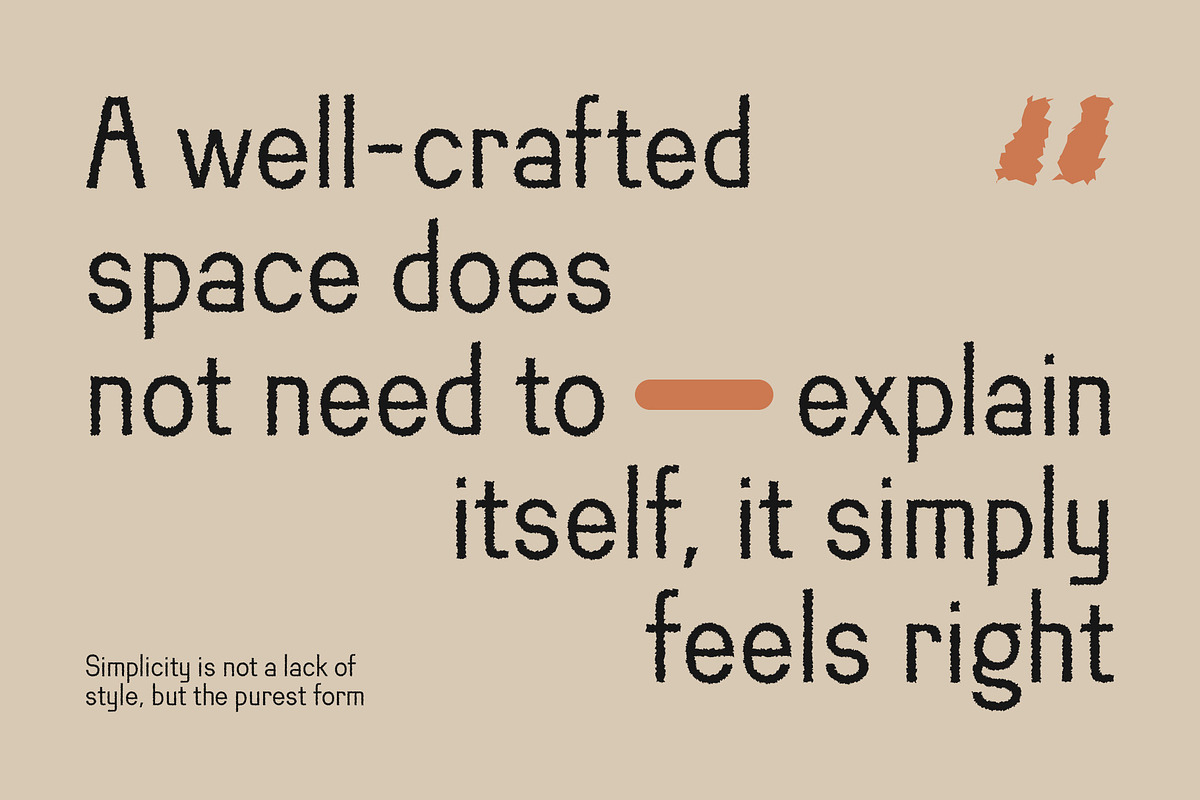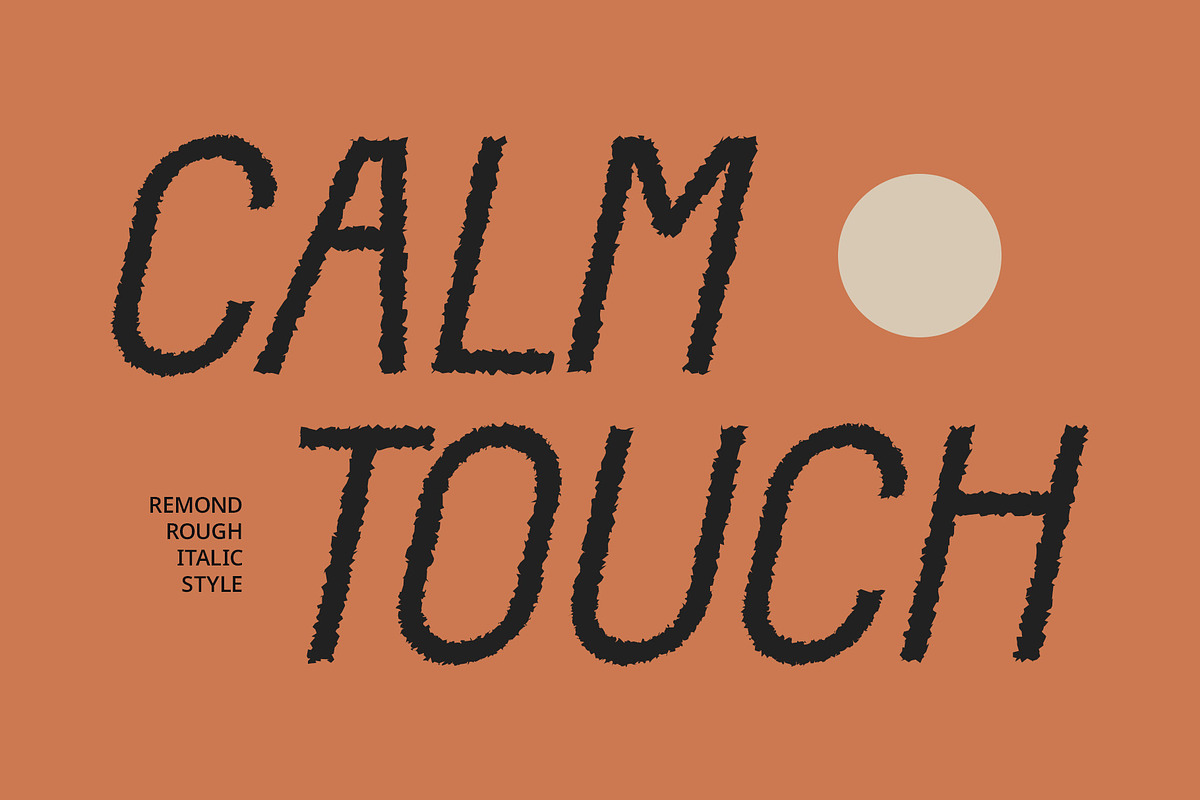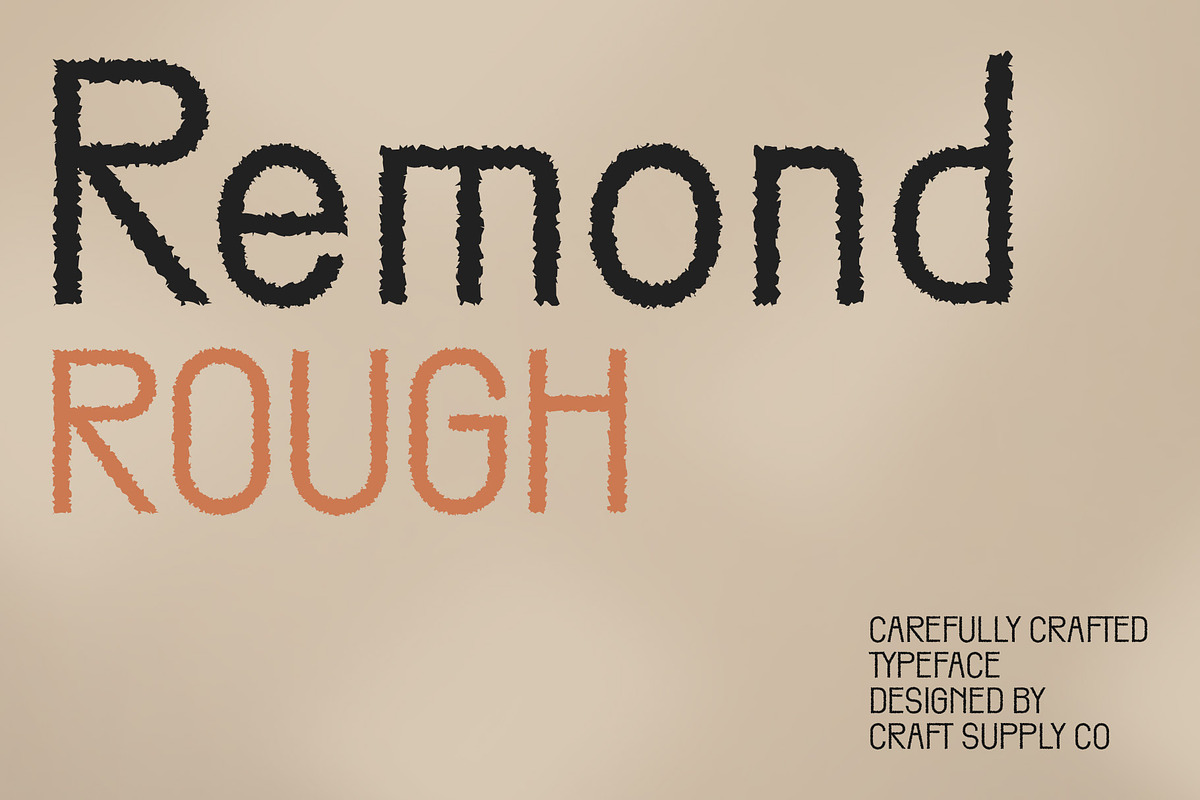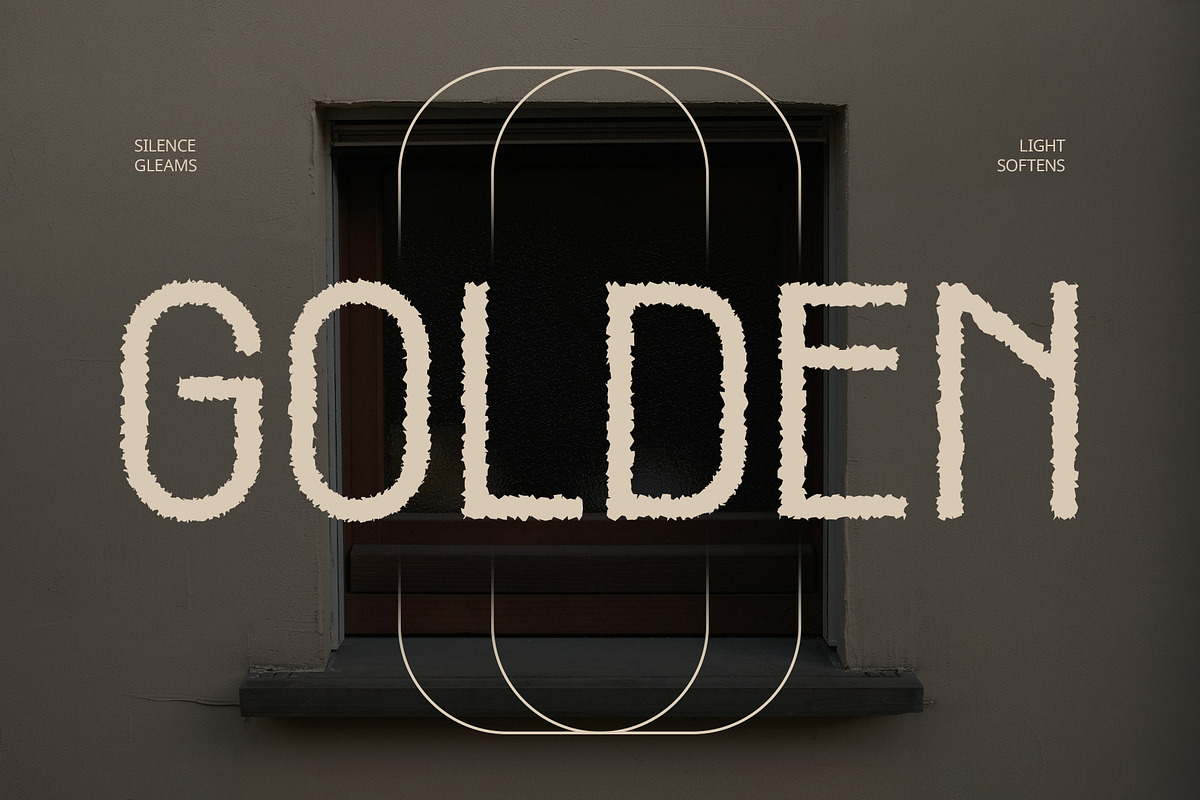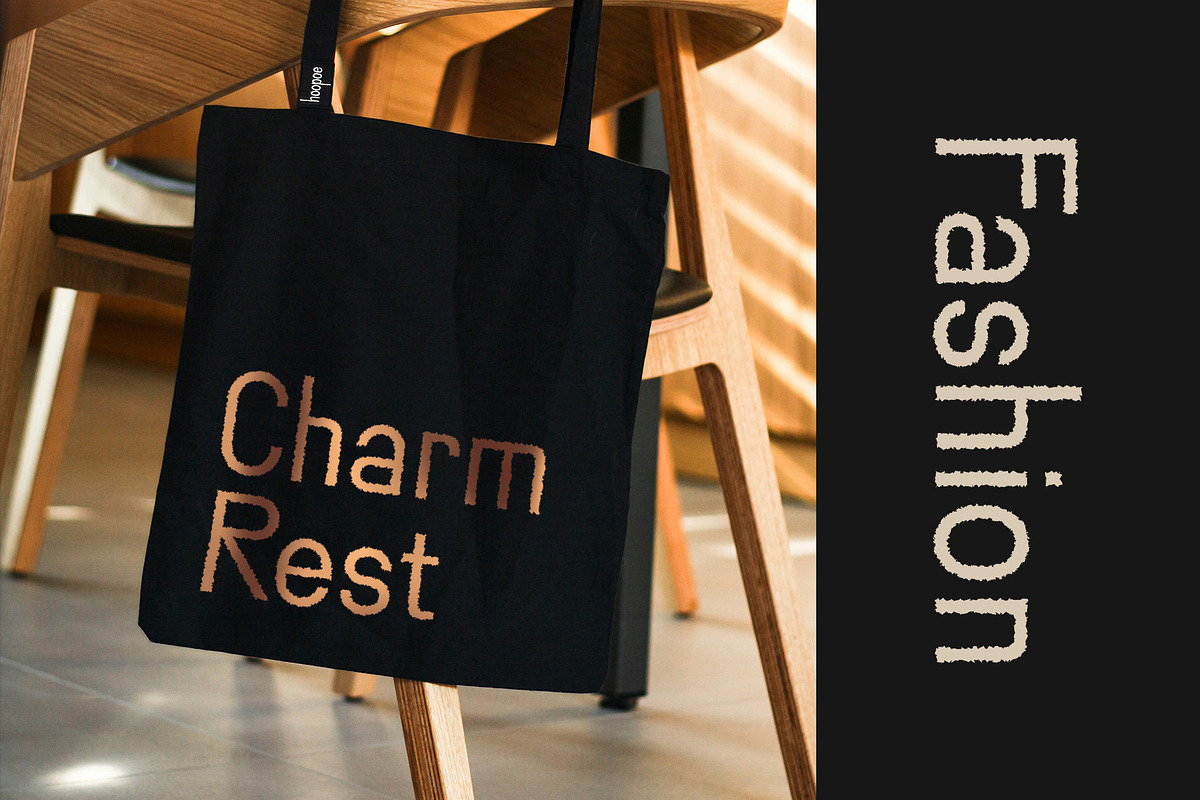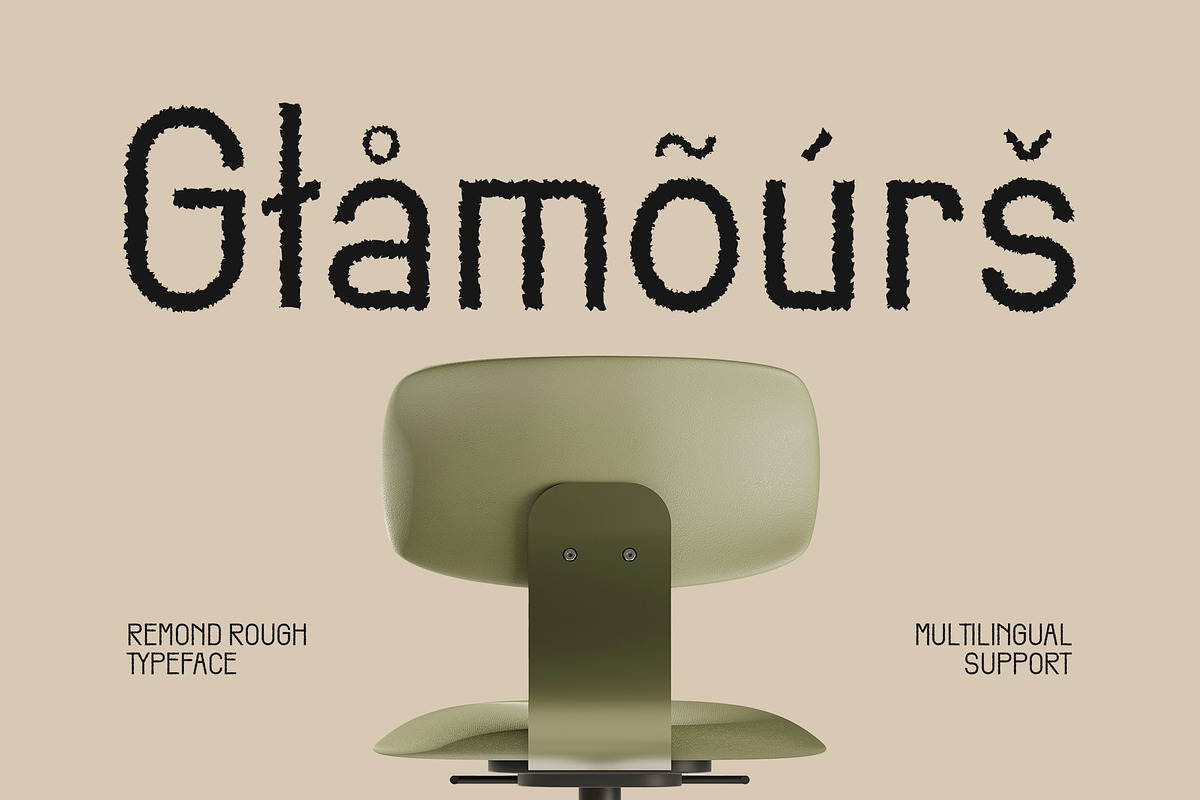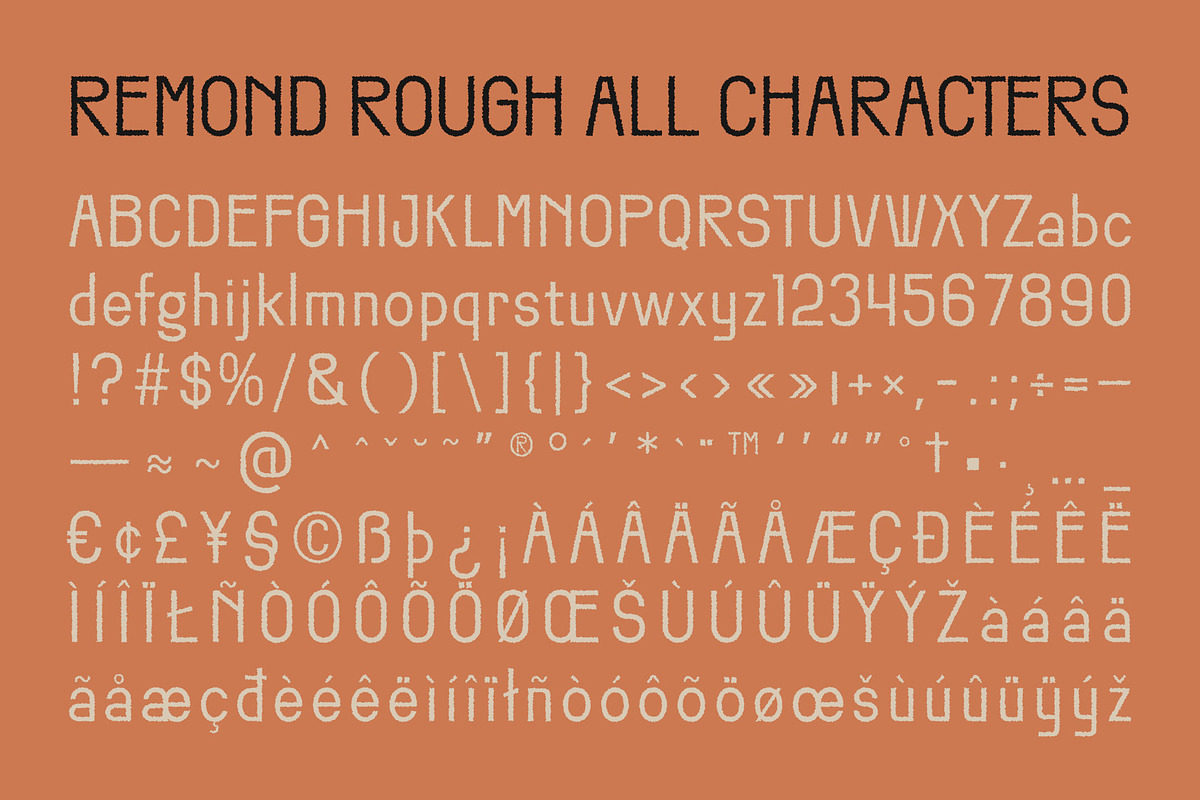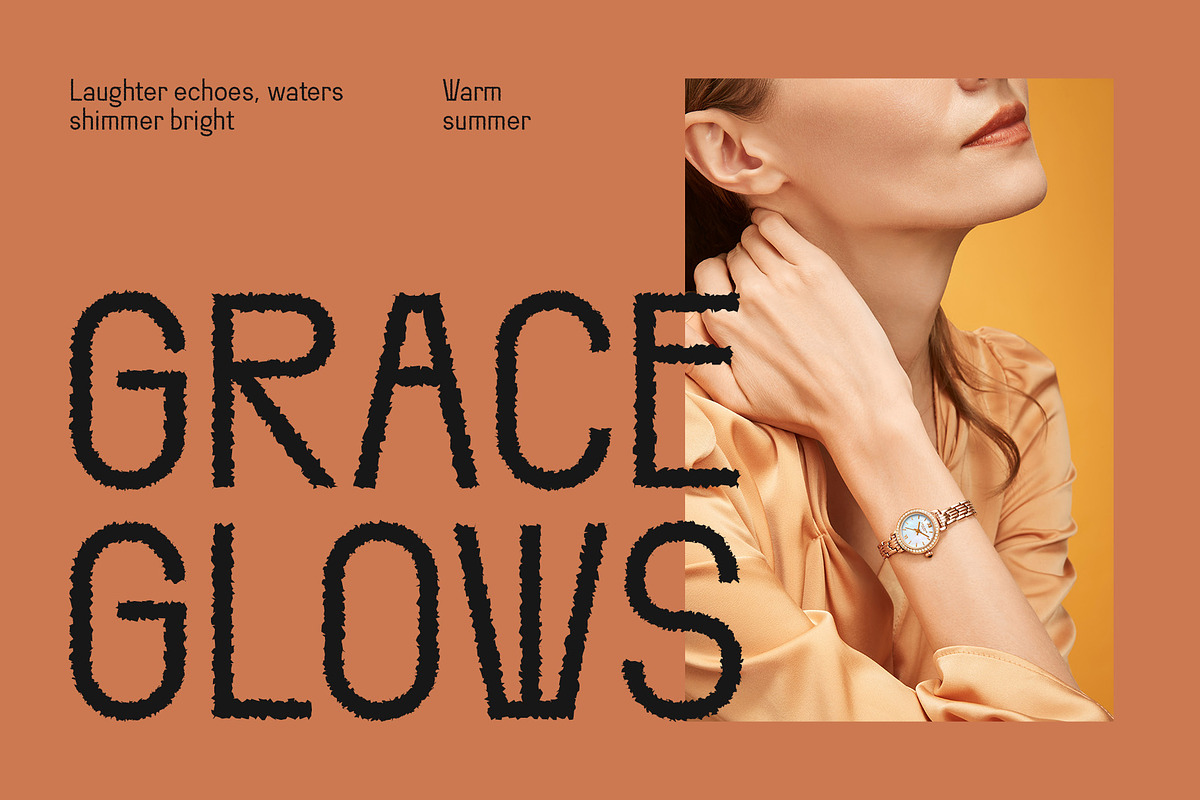
Remond Rough
Remond Rough Font – Retro Precision with Vintage Grit
Classic Condensed Forms for Strong Impact Remond Rough is a sans serif font that embraces a classic typographic style with a clean and condensed structure. Its narrow letterforms create a compact, efficient layout that maintains high readability while delivering a strong, confident visual presence. This makes it perfect for headlines, posters, and tight compositions where space is limited but impact is essential.
Retro Charm with Functional Design Rooted in vintage-era typography, Remond Rough brings nostalgic flair to modern design. Its condensed structure recalls the utilitarian charm of classic signage and packaging, blending function and personality. The font strikes a balance between retro aesthetics and practical readability—ideal for designs that want to nod to the past without losing clarity or relevance.
Rough Texture for Organic Vintage Feel Adding to its character is a rough, worn-in texture that mimics the imperfections of hand-printed type. This gritty overlay softens the font’s clean edges, introducing an organic, tactile quality that enhances its nostalgic appeal. The result is a design that feels authentic, aged, and full of handcrafted warmth.
Perfect for Nostalgic and Character-Driven Projects Remond Rough is a natural fit for retro-inspired posters, vintage product packaging, or branding that leans into character and charm. Its condensed form, classic influence, and rough finish come together to deliver a distinctive and memorable typographic voice.
- Remond Rough Regular
- Remond Rough Italic